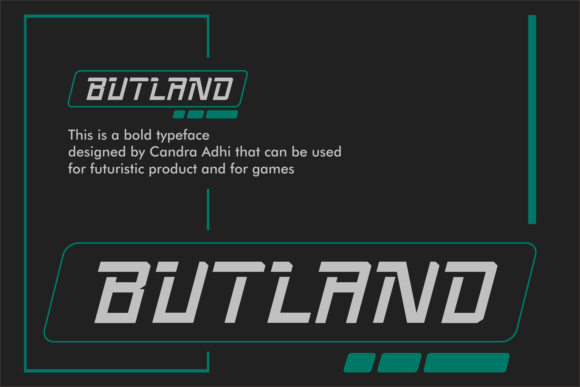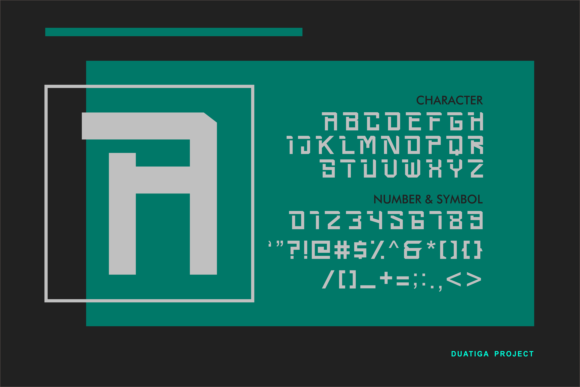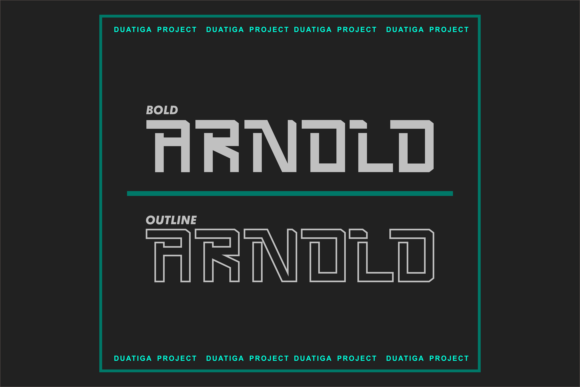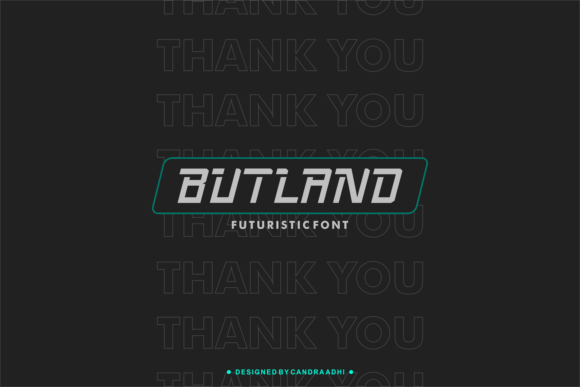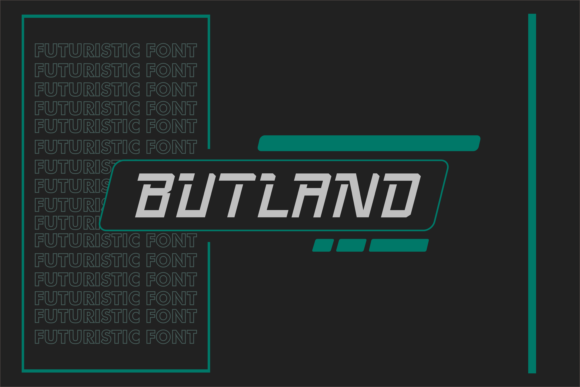
Introducing Butland Font: The Ultimate Modern Display Font
Are you tired of using the same old fonts for your designs? Look no further than Butland Font, a cool, bold, and modern display font that’s perfect for adding a futuristic touch to your work. In this article, we’ll dive into the features and benefits of Butland Font, and explore how it can elevate your designs to the next level.
What is Butland Font?
Butland Font is a modern display font designed to make a statement. Its bold and sleek lines make it perfect for use in web designs, business cards, posters, and any other project that requires a futuristic feel. The font is highly legible, even at small sizes, making it versatile and easy to use.
Key Features of Butland Font
- Bold and Modern Design: Butland Font features a bold and modern design that’s perfect for making a statement.
- Highly Legible: The font is highly legible, even at small sizes, making it perfect for use in a variety of projects.
- Versatile: Butland Font can be used in a wide range of projects, from web designs to business cards, posters, and more.
- Easily Customizable: The font is easily customizable, allowing you to adjust the size, color, and style to fit your needs.
Benefits of Using Butland Font
So why choose Butland Font for your next project? Here are just a few benefits of using this amazing font:
- Adds a Futuristic Touch: Butland Font adds a futuristic touch to your designs, making them stand out from the crowd.
- Increases Legibility: The font’s high legibility ensures that your message is clear and easy to read.
- Versatile and Customizable: Butland Font can be used in a wide range of projects and is easily customizable to fit your needs.
- Professional and Modern Look: The font gives your designs a professional and modern look that’s sure to impress.
Who Can Benefit from Butland Font?
Butland Font is perfect for a wide range of designers and crafters, including:
- Graphic Designers: Graphic designers can use Butland Font to add a modern and futuristic touch to their designs.
- Web Designers: Web designers can use the font to create modern and stylish website headers, titles, and more.
- Crafters: Crafters can use Butland Font to add a professional and modern touch to their DIY projects, such as handmade cards and invitations.
- Marketing and Advertising Professionals: Marketing and advertising professionals can use the font to create eye-catching and effective marketing materials.
How to Use Butland Font
| Font Name | Butland Font |
| Author | Duatiga |
In conclusion, Butland Font is a cool, bold, and modern display font that’s perfect for adding a futuristic touch to your designs. Its highly legible design, versatility, and ease of customization make it a great choice for a wide range of projects. Whether you’re a graphic designer, web designer, crafter, or marketing professional, Butland Font is sure to become a go-to font in your collection.